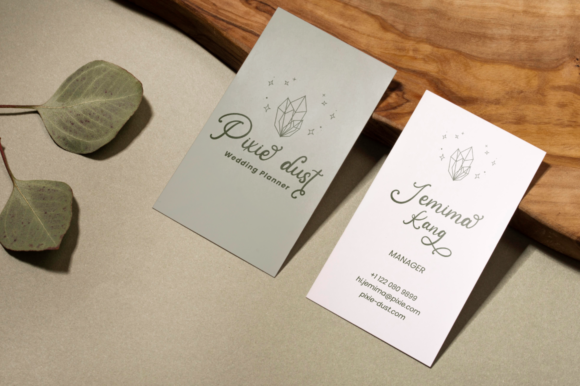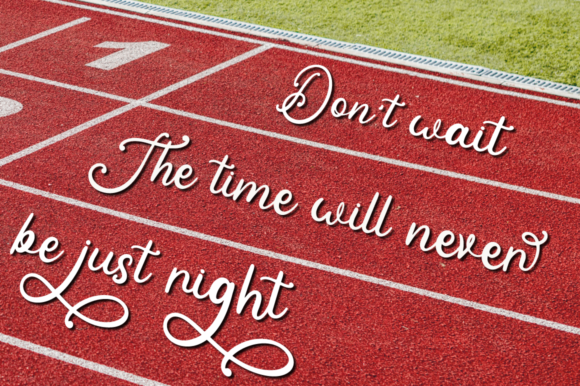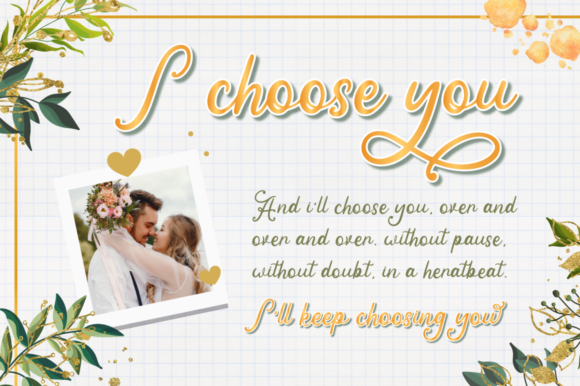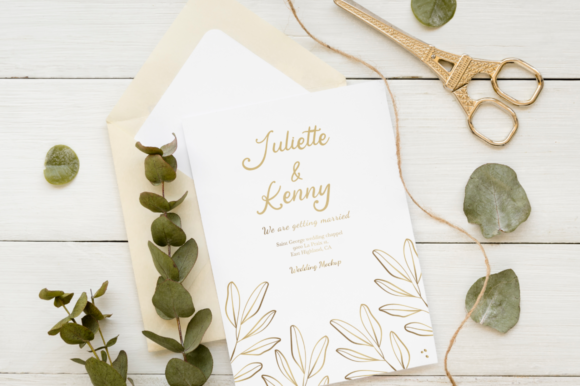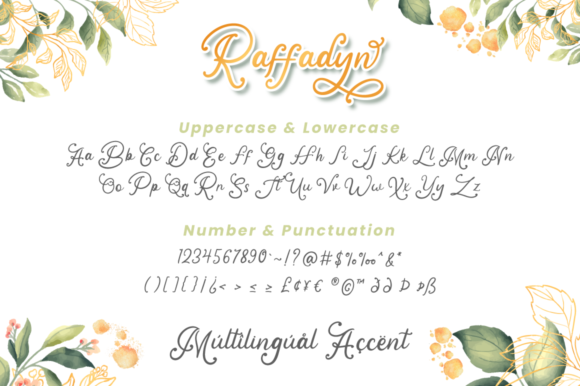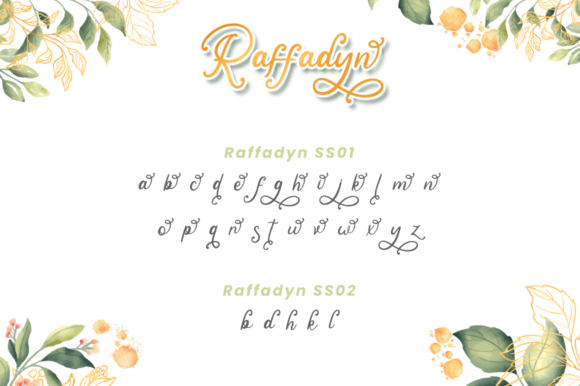
Discover the Magic of Raffadyn Font
Have you ever stared at a blank canvas, unsure of where to begin your creative project? The cursor blinks, and the silence is deafening. It’s in these moments that we search for the perfect design resource to spark our imagination. For many designers, the right font can be the difference between a good project and a great one.
Enter the enchanting Raffadyn Font, a whimsical script font that embodies a relaxed and lovely style. With its versatility, it can elevate any creation, from a simple logo to a complex visual story. Whether you’re working on a personal project or a client’s brief, Raffadyn Font is an incredibly valuable asset to have in your design arsenal. And the best part? It’s available for free download, allowing you to experiment with its possibilities without any financial constraints.
- The Raffadyn Font is a high-quality design resource, suitable for various creative projects that require a unique touch.
- This font features a transparent background, allowing for seamless integration with any design or image.
- The font is available in a single size, with a resolution of 300 DPI, making it ideal for print and digital use.
- One of the unique characteristics of Raffadyn Font is its versatility, making it suitable for a wide range of creative projects, from logos to typography-based designs.
- The font’s high-quality design and transparent background make it an excellent design resource for anyone looking to add a professional touch to their creative project.
Honest Review: Raffadyn Font
As a designer, I’m always on the lookout for high-quality design resources that can elevate my creative projects. Recently, I had the chance to try out the Raffadyn Font, and I must say, it’s been a game-changer.
What works well: ✨ The Raffadyn Font is incredibly versatile and can be used for a wide range of creative projects, from web design to graphic design. It’s also a free download, making it a fantastic design resource for designers on a budget. The font’s transparent background feature allows for seamless integration with any background image or color, giving me complete control over the design.
What doesn’t work so well: ⚠️ While the Raffadyn Font is generally high quality, I did notice that it can be a bit heavy-handed with certain letter combinations. This can make it difficult to read in smaller font sizes, especially in long blocks of text.
Overall impression: The Raffadyn Font is a fantastic addition to any designer’s toolkit. Its versatility, free download, and transparent background feature make it a must-have for any creative project. While it may have some limitations, the benefits far outweigh the drawbacks.
The Raffadyn Font is perfect for creative projects that require a high-quality, elegant font. Some common use cases include:
Comparison to Raffadyn Font: Ostrich Sans has a more geometric and minimalist design, whereas Raffadyn Font is more playful and stylized. If you’re looking for a clean and professional font, Ostrich Sans is a suitable alternative.